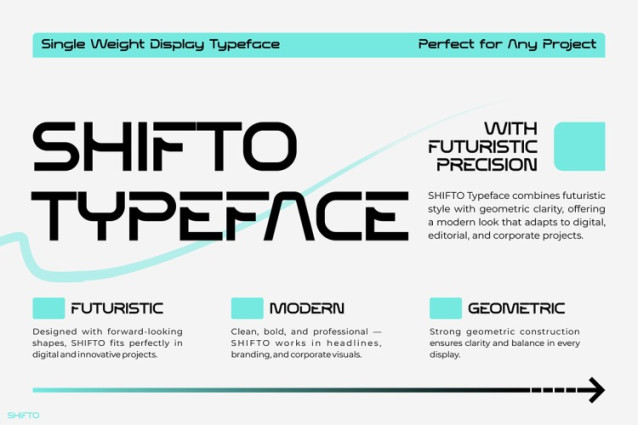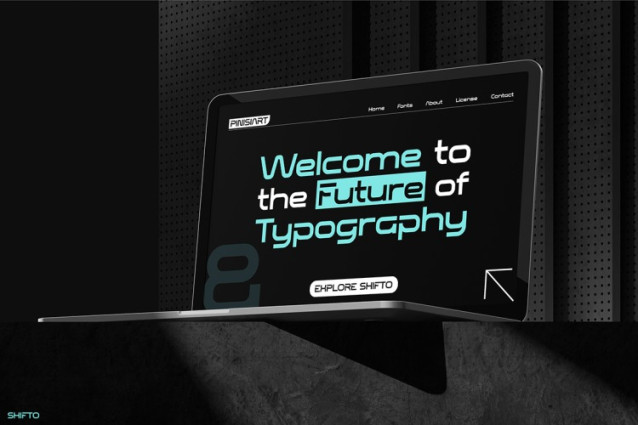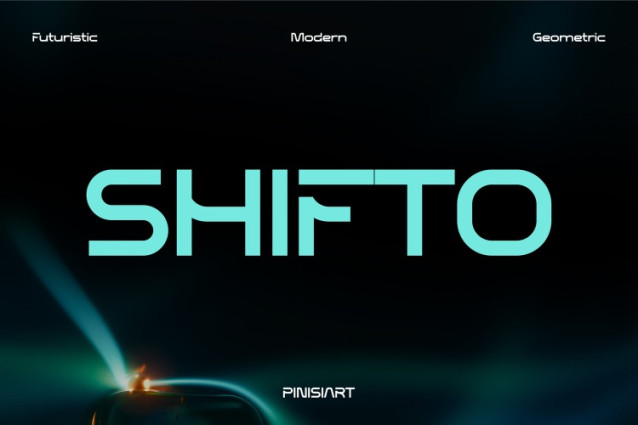
Shifto Font
Shifto Font is more than just a font. It is a bold statement of modern design and futuristic spirit. With its geometric structure, sharp edges and dynamic letterforms, this font combines strength with easy readability. Furthermore, its balanced shape is both functional and stylish. As a result, your projects will exude confidence and movement.
This design combines sports-inspired energy with technological elegance. Each letter has a sense of motion, ideal for projects that demand attention. The bold shape emphasizes strength, while the clean curves create clarity. So whether you are designing posters, digital ads or branding materials, Sport SHIFTO is instantly modern, powerful and stylish.